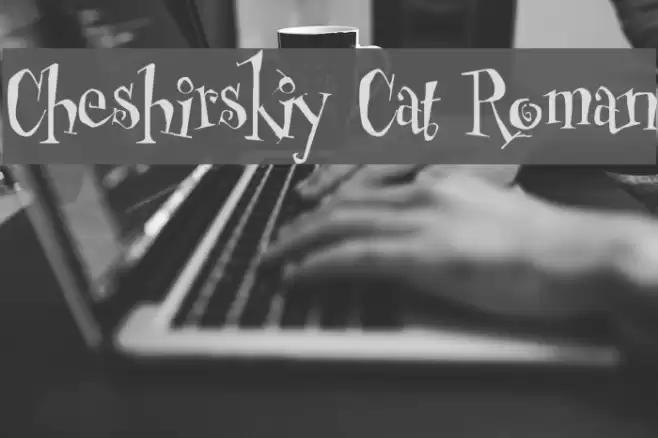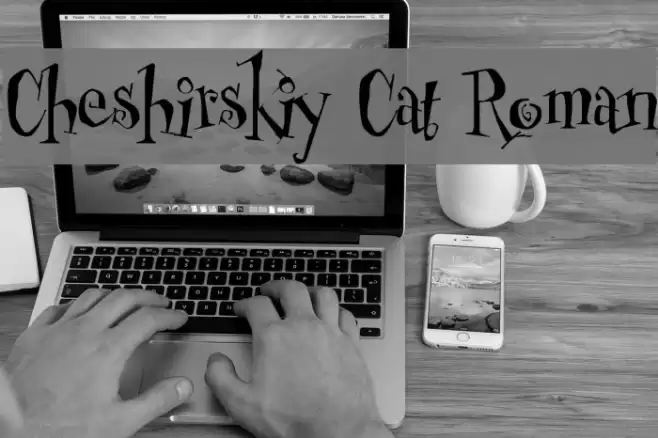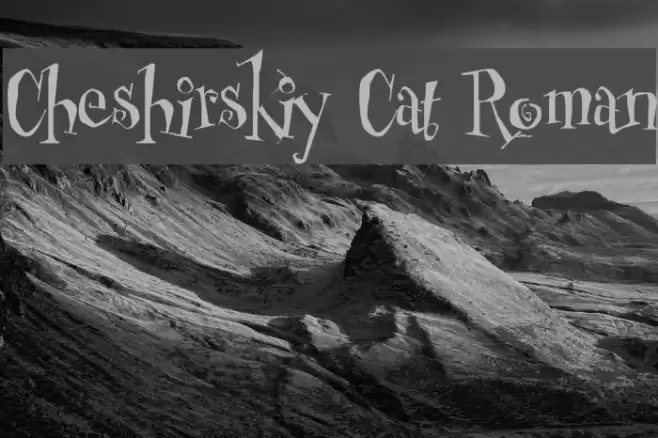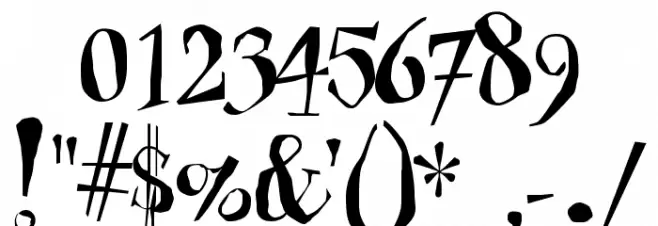
Cheshirskiy Cat Roman Font
Cheshirskiy Cat Roman Description
This font features a whimsical and playful design, reminiscent of hand-drawn lettering with a touch of fantasy. The characters exhibit a unique blend of sharp angles and smooth curves, creating a dynamic and lively appearance. The uppercase letters are bold and slightly irregular, while the lowercase letters maintain a consistent yet quirky style. Numbers and special characters follow the same playful theme, adding to the font's overall charm. This font is perfect for projects that require a touch of creativity and imagination.
A whimsical, hand-drawn style font with playful and dynamic characters from Uncategorized fonts.